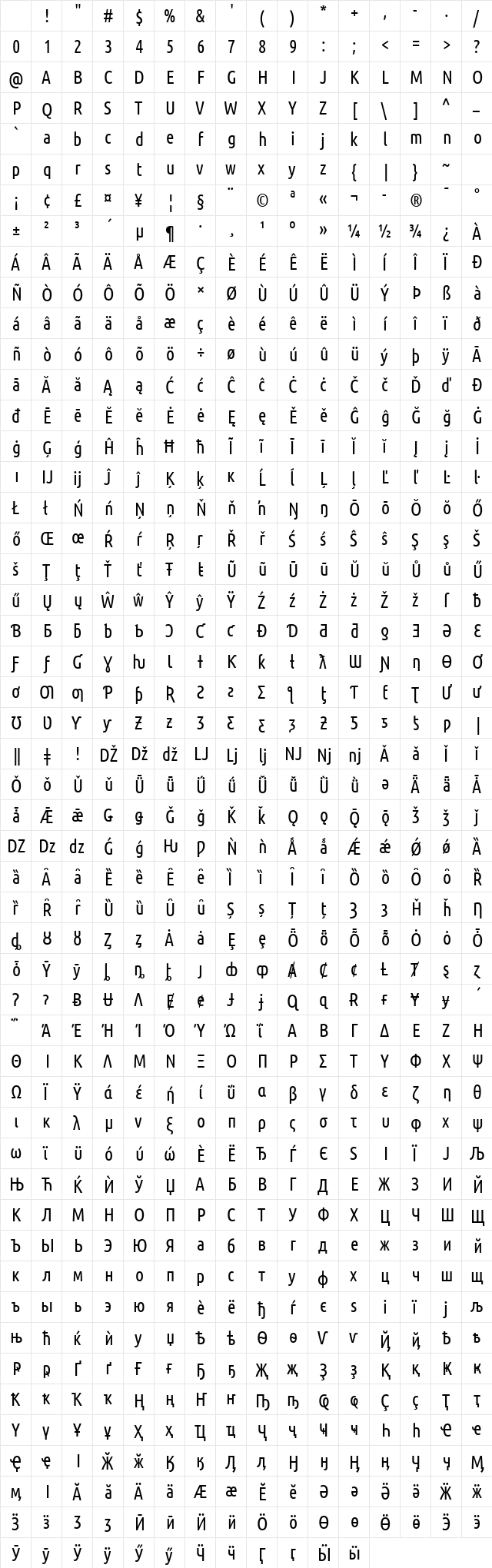
Complete UbuntuCondensed Nerd Font Regular glyph index. Displaying only characters natively supported by UbuntuCondensed Nerd Font Regular font.
UbuntuCondensed Nerd Font is a composed and adaptable typeface that performs quietly and consistently across a wide range of design contexts. Its narrow stance lets it pack a punch even in space-constrained designs.
Who designed the UbuntuCondensed Nerd Font Regular font?